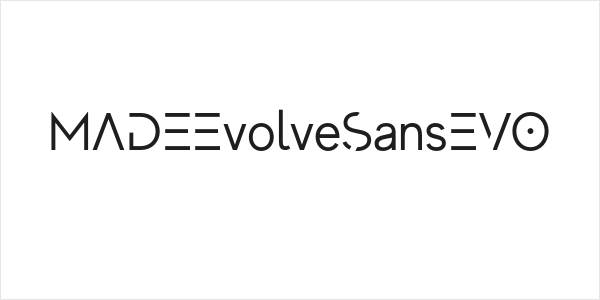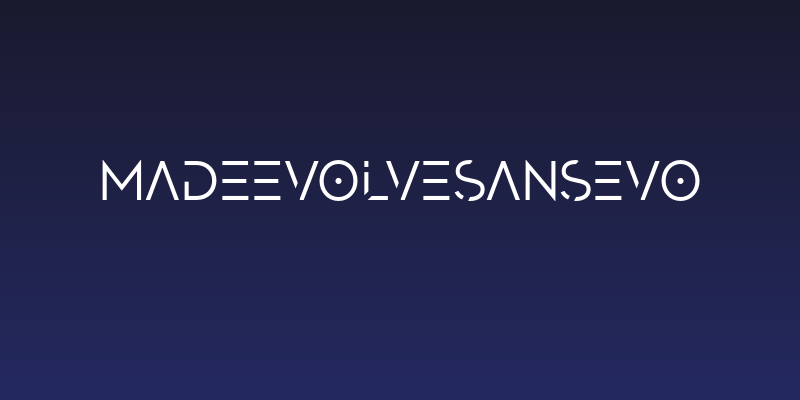
MADEEvolveSansEVO Font
MADEEvolveSansEVO Description
This font presents a modern and sleek design with a geometric sans-serif style. The uppercase letters feature unique and innovative cuts, particularly noticeable in characters like 'A', 'B', and 'E', which add a futuristic touch. The lowercase letters maintain a clean and minimalistic appearance, ensuring readability. The numerals are consistent with the overall geometric theme, offering a uniform look. Special characters are well-integrated, maintaining the font's cohesive style. This typeface is versatile, suitable for both digital and print media, and can effectively convey a contemporary and professional aesthetic.
| Proposed Projects | Ideal for branding, advertising, web design, and editorial projects that require a modern and professional look. |